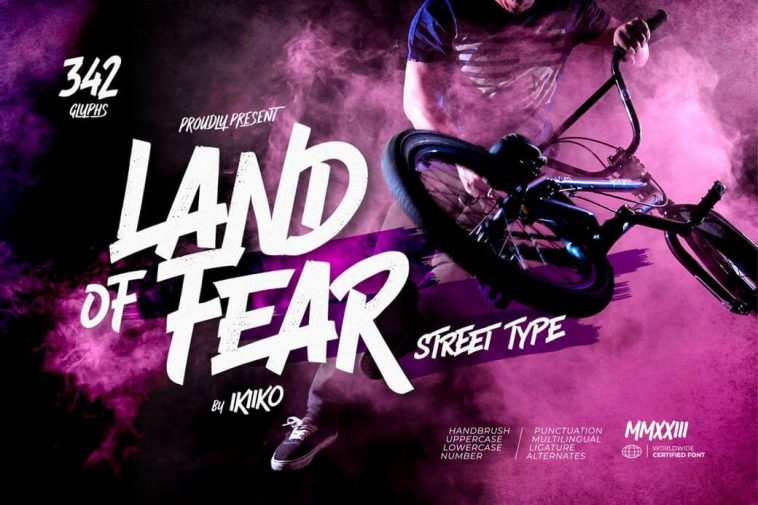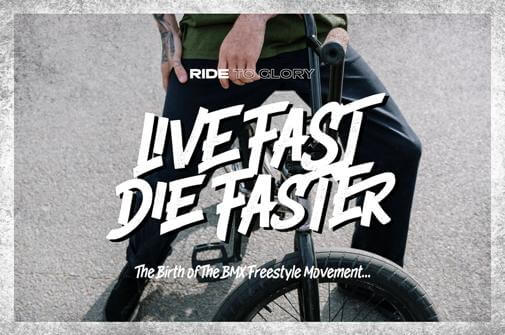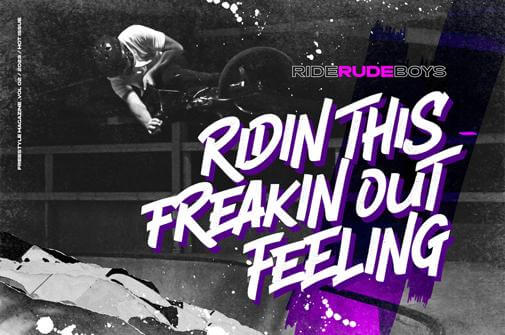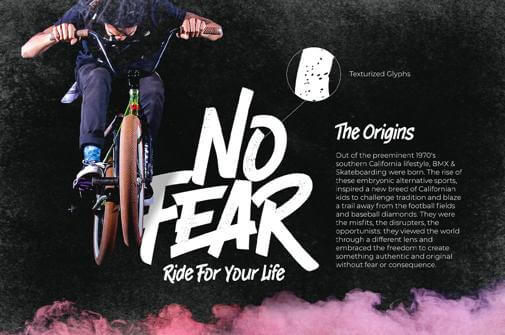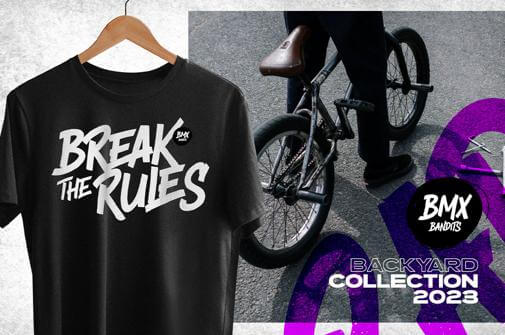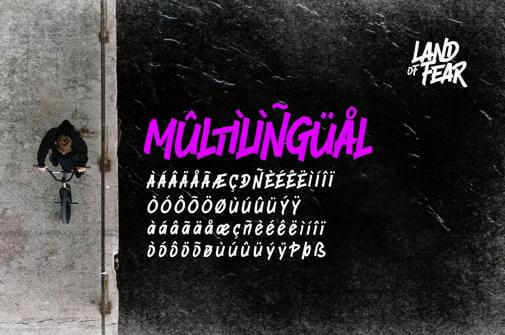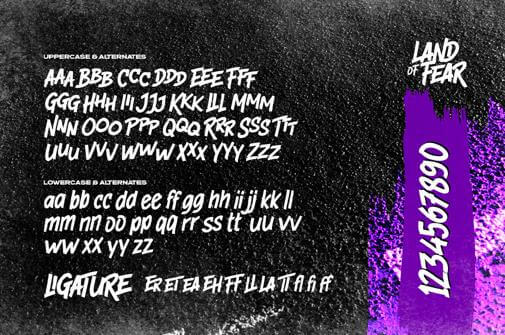
Land Of Fear — Street Type Free Fancy Font
Land Of Fear — Street Type
Today we have to share the Land Of Fear, a bold and edgy street-type fancy font that adds a rebellious touch to your designs. Perfect for those who dare to break the rules, this grunge font exudes an urban vibe, making it ideal for sport-themed projects or any design that craves an unconventional look. With upper and lowercase letters, numbers, punctuation, and multilingual support, this font offers the freedom to create unique and impactful results. Embrace the fearless aesthetic of Land Of Fear and infuse your designs with a distinctive and gritty character.